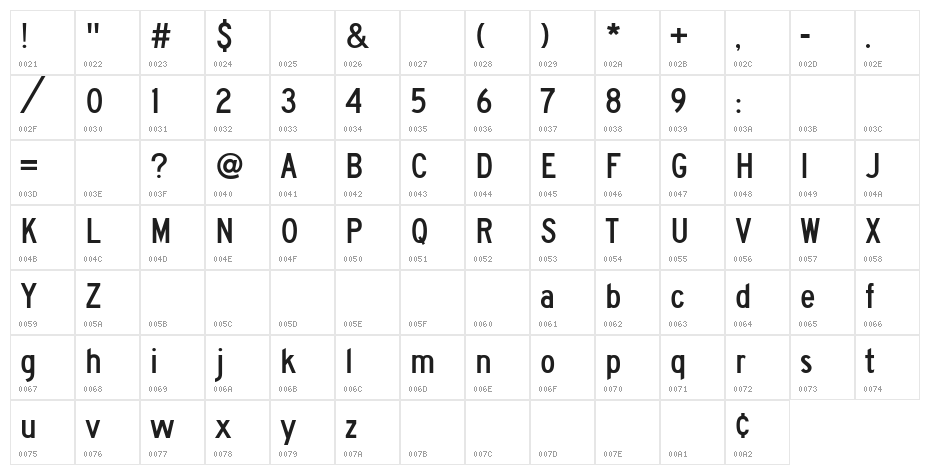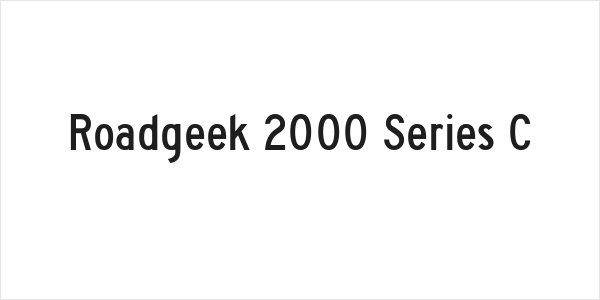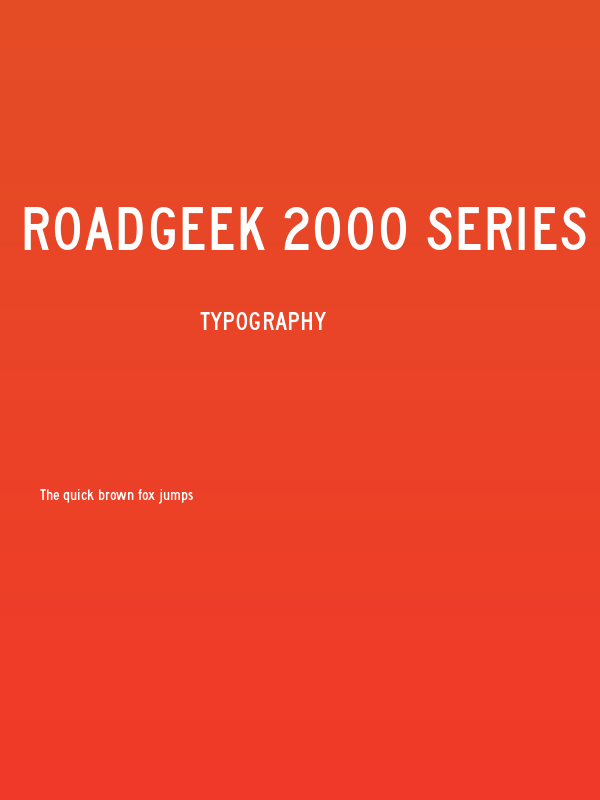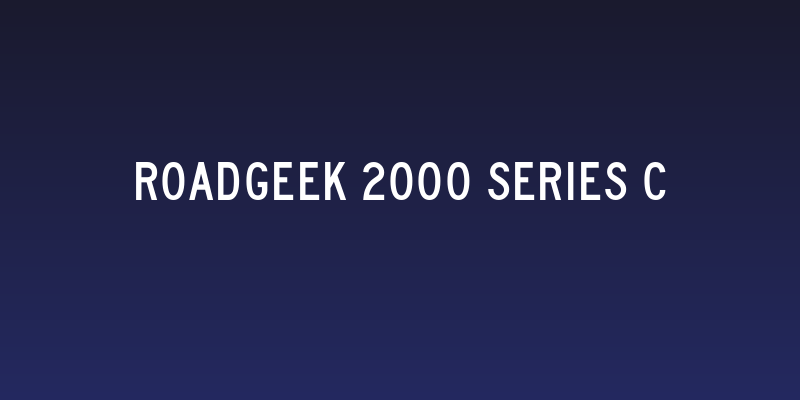
Roadgeek 2000 Series C Font
Roadgeek 2000 Series C Description
This font is a clean and highly legible sans-serif typeface, characterized by its straightforward and utilitarian design. The letters are evenly spaced with a consistent stroke width, making it ideal for clear communication. The uppercase and lowercase letters maintain a uniform height and width, contributing to its readability. The numerals are distinct and easy to differentiate, which is essential for numerical data presentation. Special characters are simple and match the overall aesthetic, ensuring they do not distract from the main text. This font is suitable for both digital and print media, where clarity and simplicity are paramount.
| Use Case | Headlines, Body text, Signage |
| Proposed Projects | Ideal for road signage, instructional manuals, technical documents, and digital interfaces requiring clear readability. |